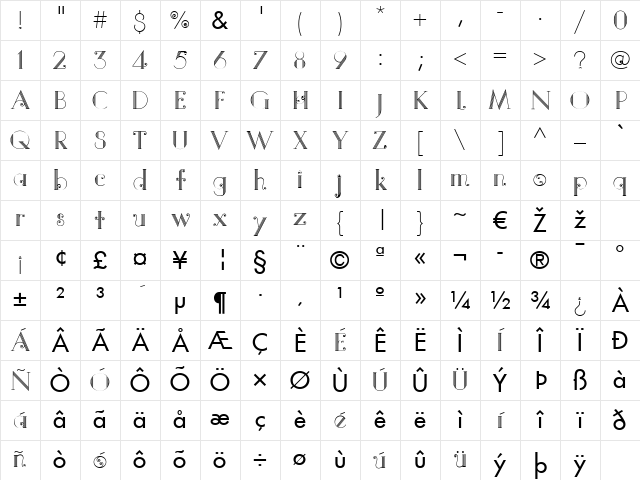
Quito Colonial LT Medium is a composed and adaptable typeface that performs quietly and consistently across a wide range of design contexts. Its slender proportions lend an understated elegance to any composition.
Pro Tip: Use Quito Colonial LT Medium in both headline and body roles to test its range before committing to a single application.